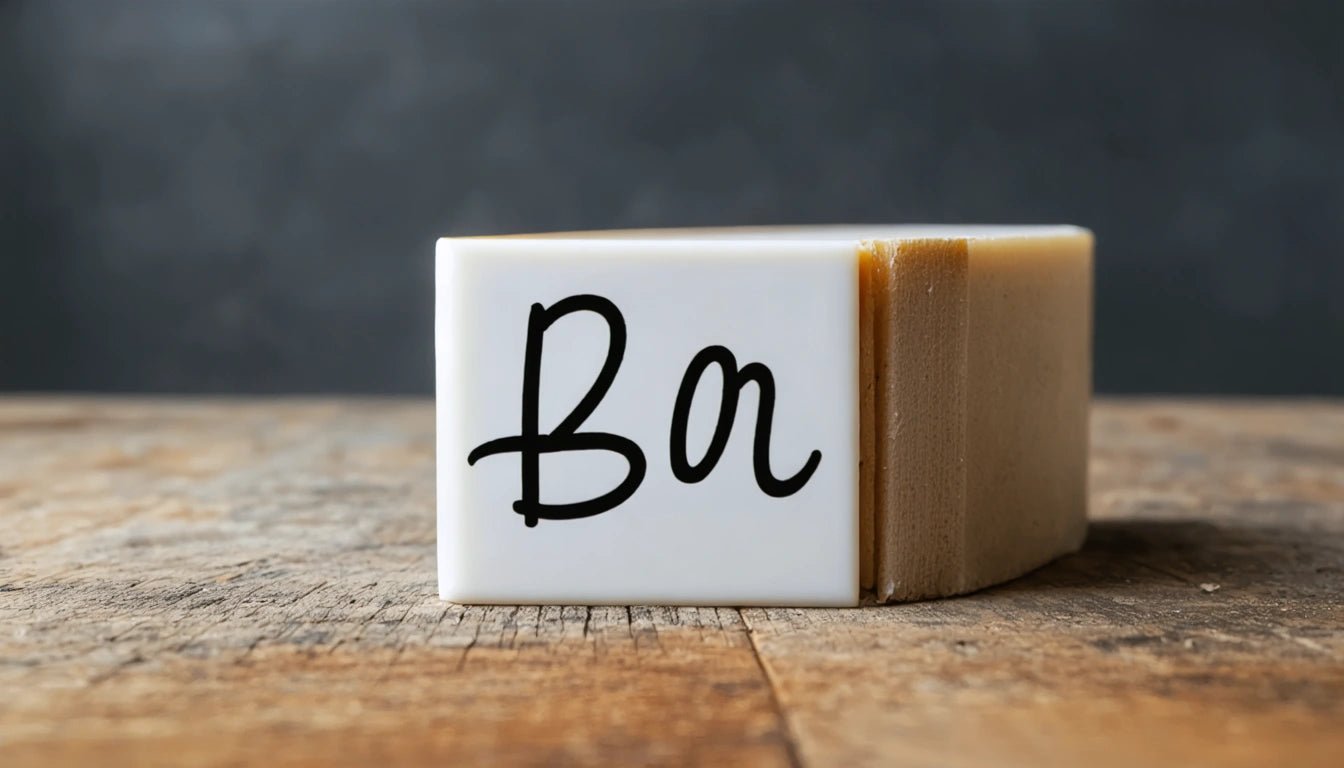
Top Script Fonts: Discover the Best Cursive and Hand Script Typefaces
Script fonts add elegance, personality, and a human touch to design projects. From flowing cursive styles to casual handwritten options, the best script fonts can elevate branding, invitations, packaging, and digital content. This comprehensive guide explores top script fonts across various categories, helping you select the perfect typeface for your specific needs.
Understanding Script Fonts: Categories and Characteristics
Script fonts mimic handwriting or calligraphy, featuring connected letters and fluid strokes. According to this beginner's guide to script fonts, they generally fall into several categories:
- Formal scripts: Elegant, flowing typefaces inspired by 17th and 18th-century writing
- Casual scripts: Relaxed, natural handwriting styles
- Calligraphic scripts: Based on traditional calligraphy techniques
- Brush scripts: Mimicking paint brush strokes
- Handwritten scripts: Replicating everyday handwriting
The best script font for your project depends on the mood, context, and legibility requirements. Formal scripts convey sophistication, while casual scripts communicate approachability and authenticity.
Most Popular Script Fonts for Professional Design
Certain script fonts have earned widespread acclaim for their versatility and aesthetic appeal. These popular script fonts appear consistently in professional design work:
1. Bombshell Pro
A flowing script with dramatic swashes and elegant connections, Bombshell Pro remains one of the most popular script fonts for wedding invitations and luxury branding.
2. Playlist Script
This versatile script balances formality with approachability, making it ideal for both corporate and creative applications.
3. Great Vibes
A free alternative to more expensive options, Great Vibes offers classic cursive styling with excellent legibility.
4. Brusher
With its authentic brush texture and natural flow, Brusher brings organic energy to packaging and promotional materials.
Best Hand Script Fonts for Authentic Expression
Hand script fonts capture the imperfections and character of real handwriting. As detailed in this collection of top handwriting fonts, the best hand script fonts include:
- Madelinette: Natural handwriting with slight irregularities
- Northwell: Dry brush style with authentic texture
- The Woodlands: Rustic, hand-drawn quality
- Magnolia Sky: Bouncy, contemporary feel
Best Script Fonts in Word: Accessible Options
Microsoft Word offers several quality script fonts by default, making elegant typography accessible without additional purchases:
Best Script Fonts on Word
- Brush Script MT: A classic brush script with good readability
- Freestyle Script: Casual, flowing handwriting
- Lucida Handwriting: Clear, legible script for body text
- Segoe Script: Modern, clean script with professional appeal
- Edwardian Script ITC: Formal, traditional cursive
These built-in options provide versatility for everyday documents, presentations, and simple design projects without requiring specialized design software.
Pairing Script Fonts: Creating Balanced Designs
Successful typography often involves pairing script fonts with complementary styles. This guide to modern fonts suggests these effective combinations:
- Pair flowing scripts with clean sans-serif fonts for contrast
- Match the mood of your script with appropriate secondary fonts
- Use script for headlines and sans-serif or serif for body text
- Consider x-height compatibility between paired fonts
For example, the elegant script Sofia pairs beautifully with the minimal sans-serif Montserrat, creating a balanced design that leverages the strengths of both typefaces.
Script Font Applications: Where to Use Them Effectively
The best script typefaces shine in specific applications where their expressive qualities enhance the message:
Branding and Logos
Script fonts convey personality in logos, particularly for businesses in creative, luxury, or personal service industries. This article on logo fonts highlights how script typefaces can differentiate brands through distinctive letterforms.
Packaging Design
On product packaging, script fonts communicate craftsmanship, tradition, or premium quality. They're especially effective for artisanal products, cosmetics, and specialty food items.
As personalization becomes increasingly important in design, expect to see more adaptive script fonts that can maintain their character while functioning across diverse applications and platforms.
The enduring appeal of top script fonts lies in their ability to inject humanity and emotion into design. Whether you choose a classic cursive script font or a contemporary hand-lettered option, these expressive typefaces remain essential tools for designers seeking to create memorable, distinctive work.